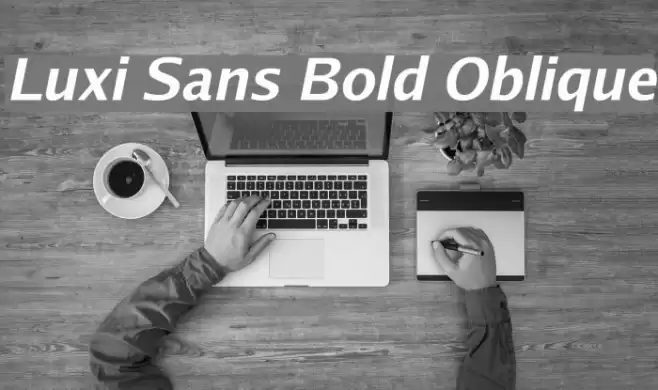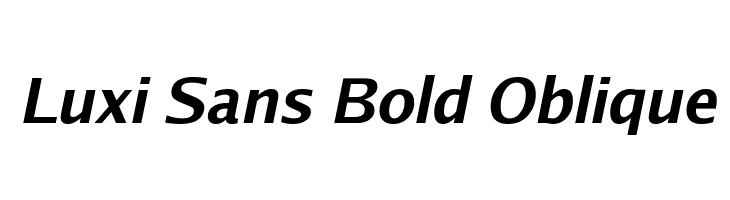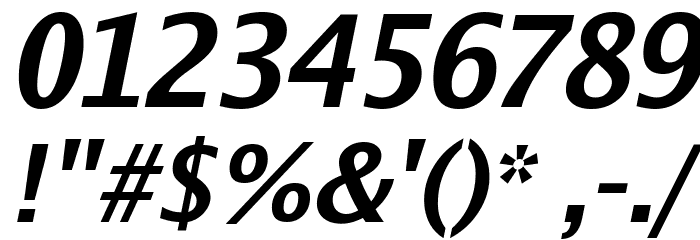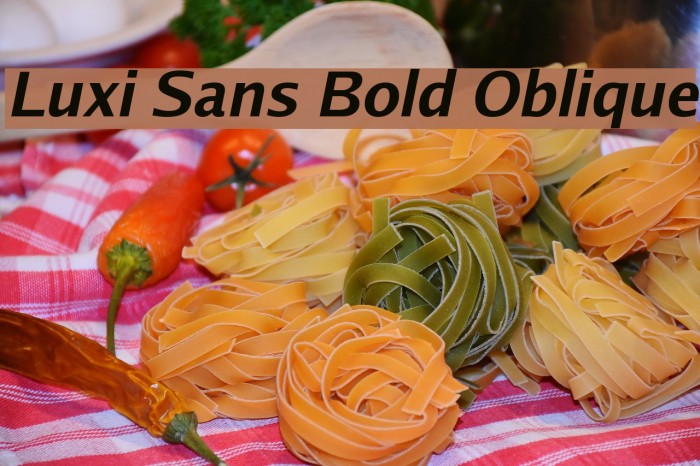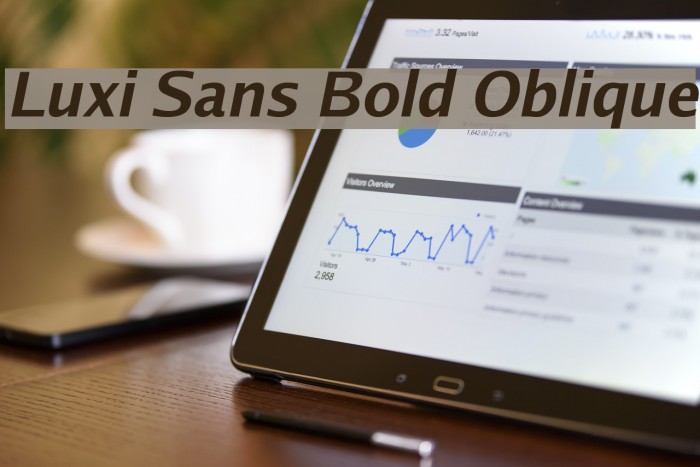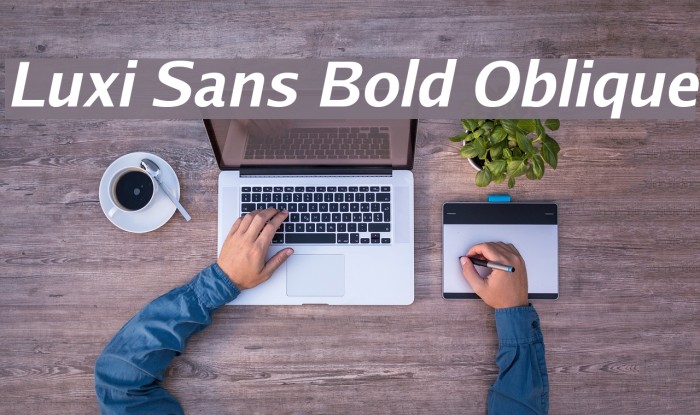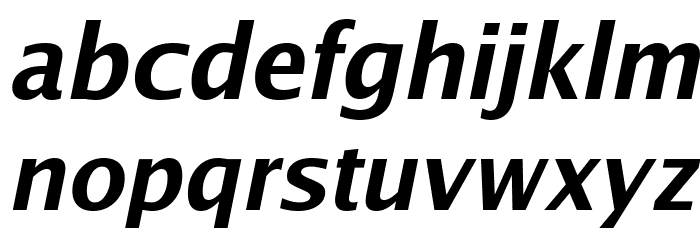
Luxi Sans Bold Oblique Font
Luxi Sans Bold Oblique Description
This font features a bold and oblique style, characterized by its clean and modern sans-serif design. The letters have a slight forward slant, giving a dynamic and energetic appearance. The bold weight ensures strong visibility and impact, making it suitable for attention-grabbing text. The characters are well-proportioned with a consistent stroke width, providing a harmonious and balanced look. The font maintains clarity and readability, even at smaller sizes, due to its straightforward and uncluttered design. The spacing between characters is normal, allowing for easy legibility. This font is versatile, suitable for both digital and print media, and can be used effectively in various design contexts.
A bold, oblique sans-serif font with a modern and dynamic style from Uncategorized fonts.